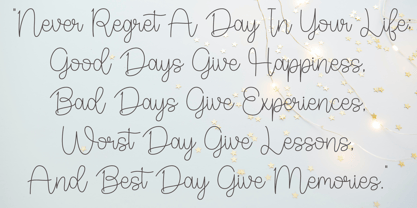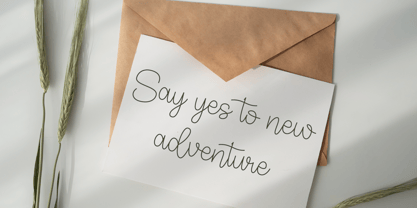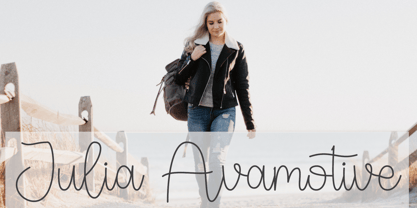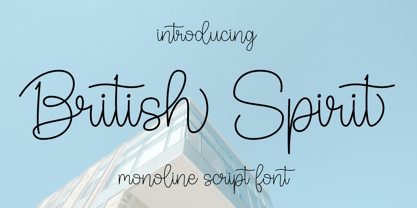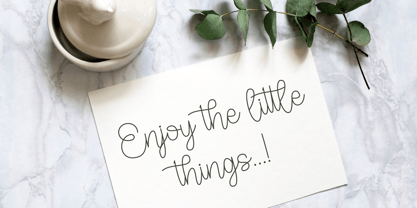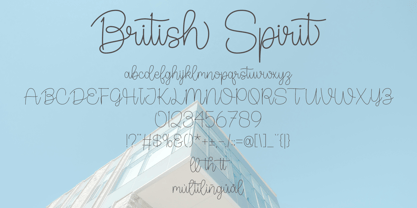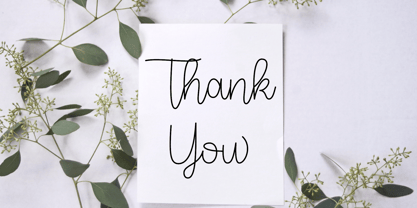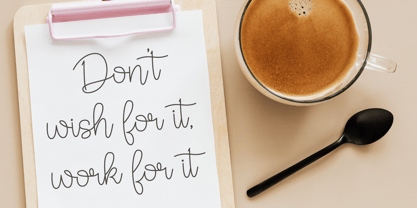
British Spirit
by Hardiboy Design
The British Spirit Font Family was designed by Hardiman Siswanto and published by Hardiboy Design. British Spirit contains 1 styles. More about this family
British spirit is a simple and friendly handwritten font. Whimsical and a bit quirky, this font will brighten up each of your designs. Add it confidently to your projects, and you will love the results. This typeface is perfect for logos, wedding invitations, quotes, advertisements, print, magazines, and more!
Designers: Hardiman Siswanto
Foundry: Hardiboy Design
My name is Hardiman Siswanto, I am 25 years old and come from Magelang, Indonesia. I'm a font maker. So far, I have created 10 fonts; script fonts are my favorite. I make a font with the characters that I have; this makes the characteristics of my font different from what others make. I give my brand the name "Hardiboy Design". I like it when people use my font for their work. I hope that I can earn income from the fonts that I have created.